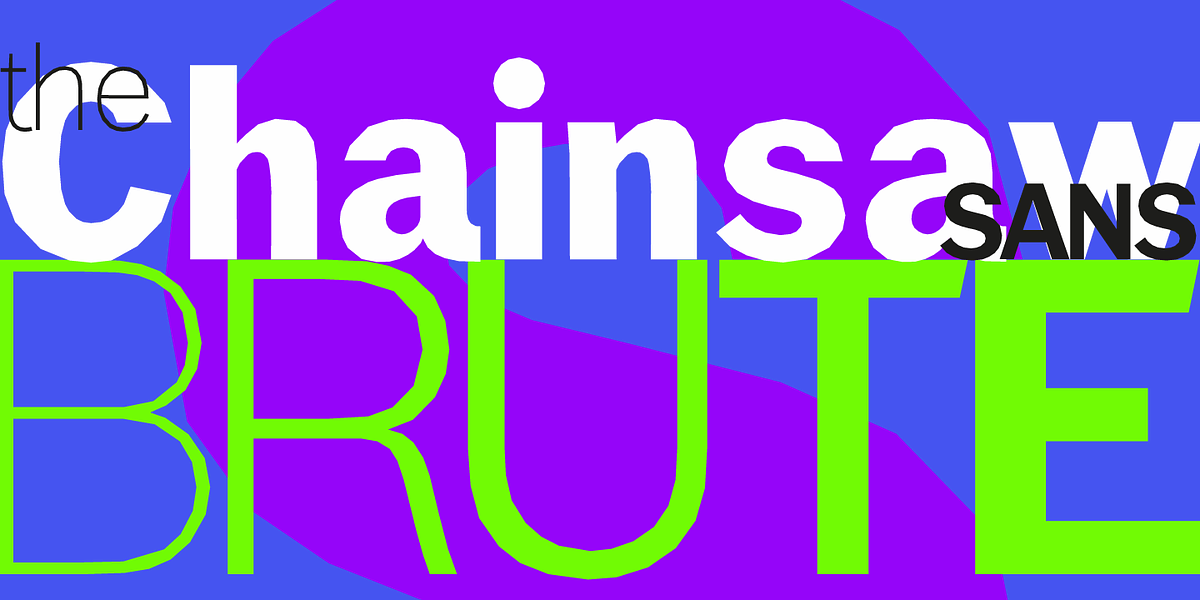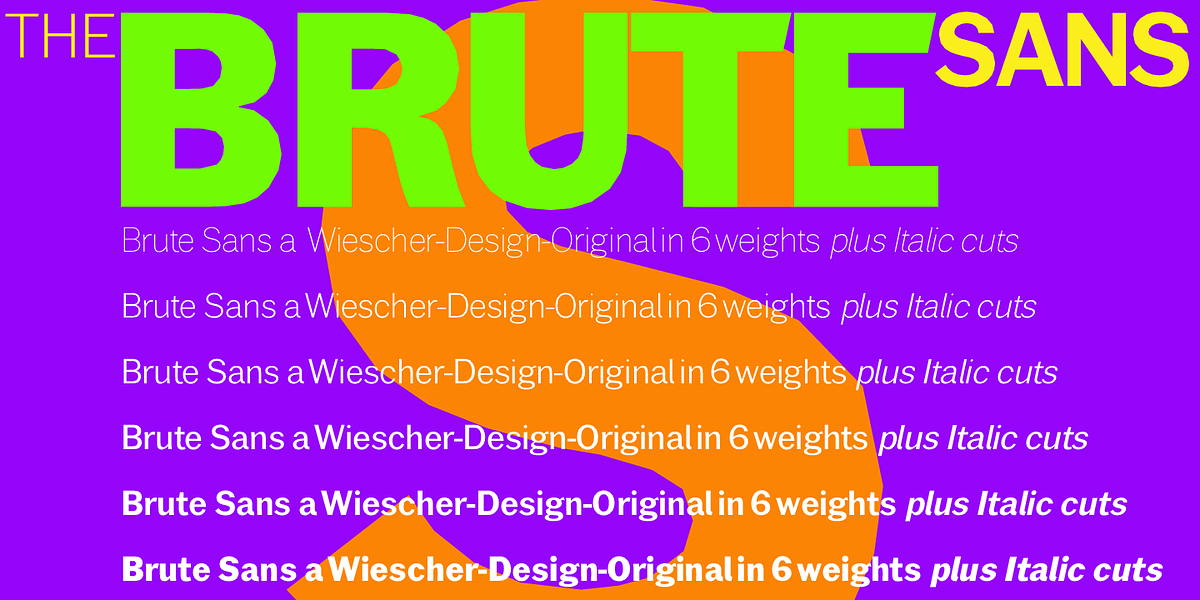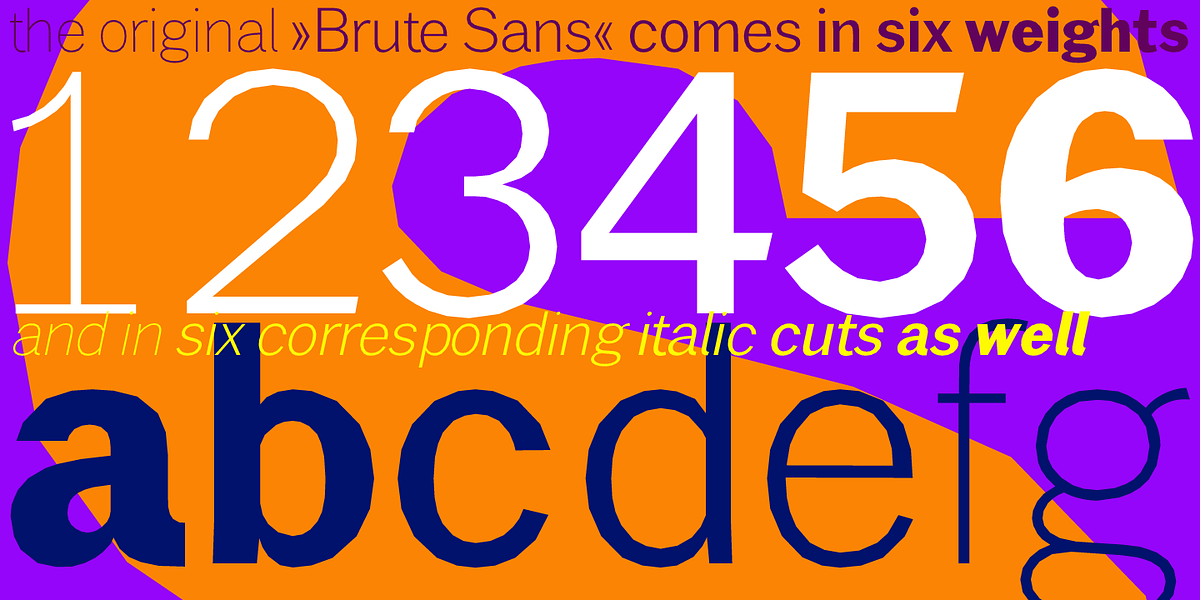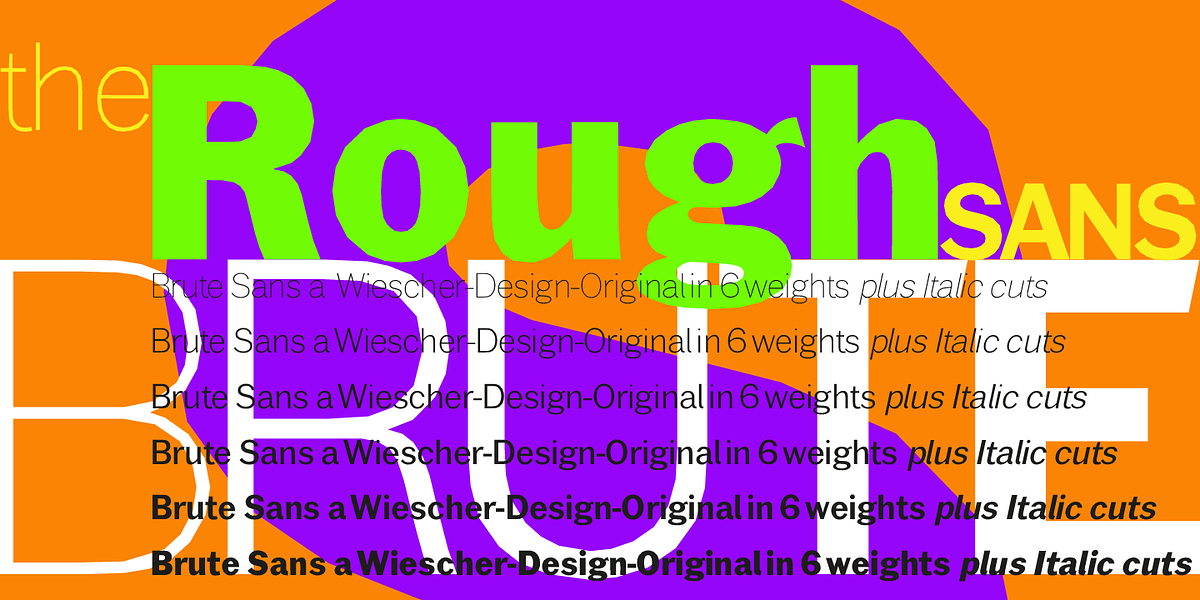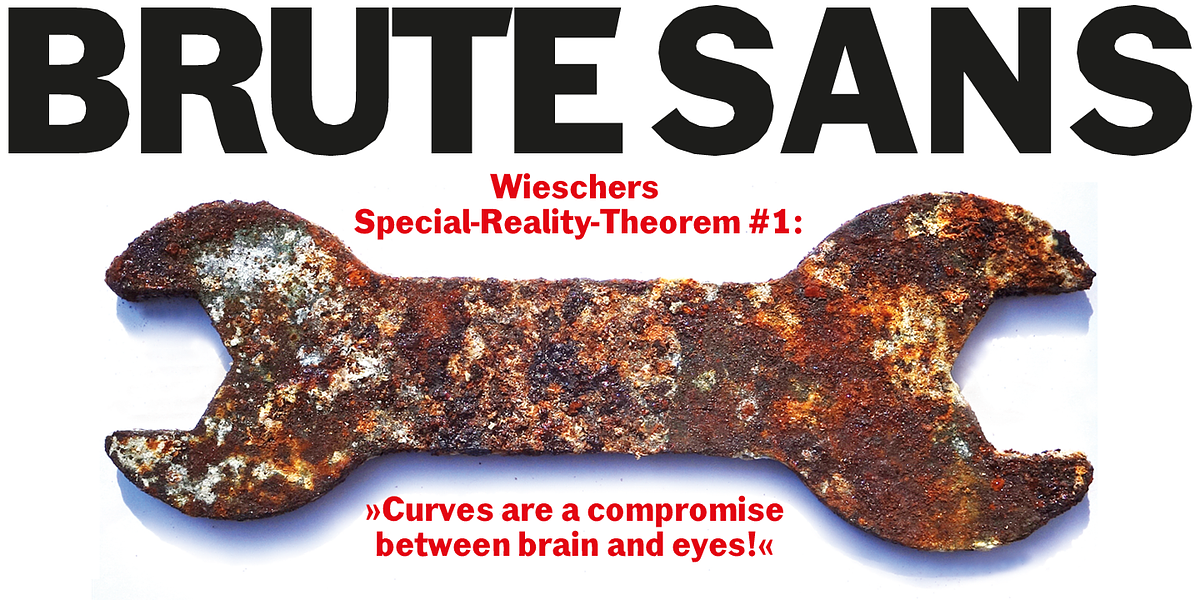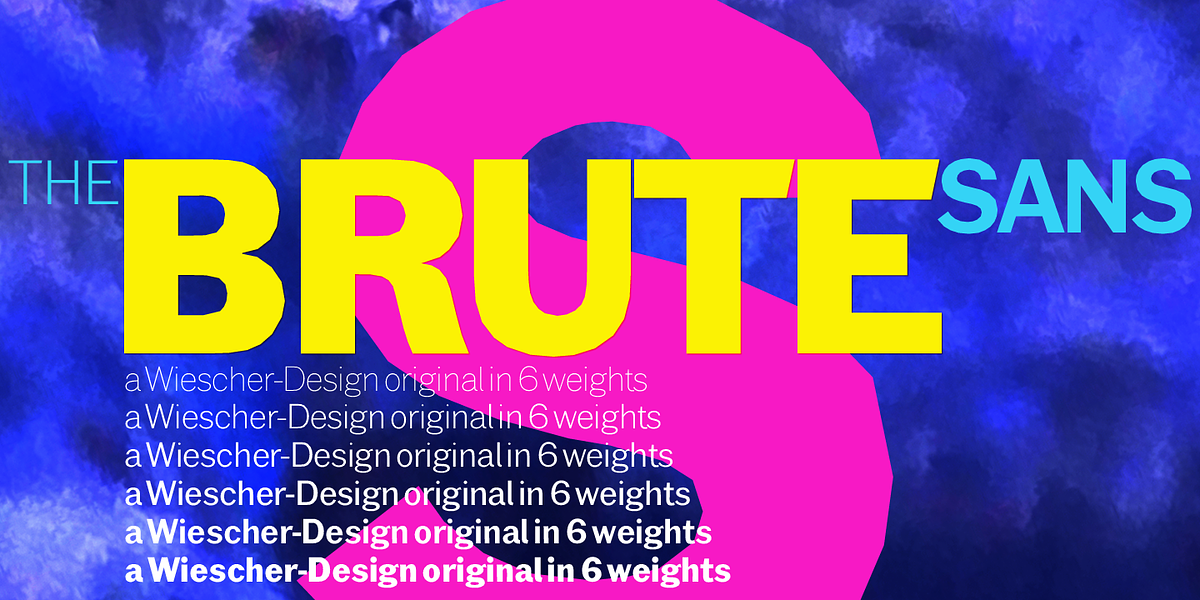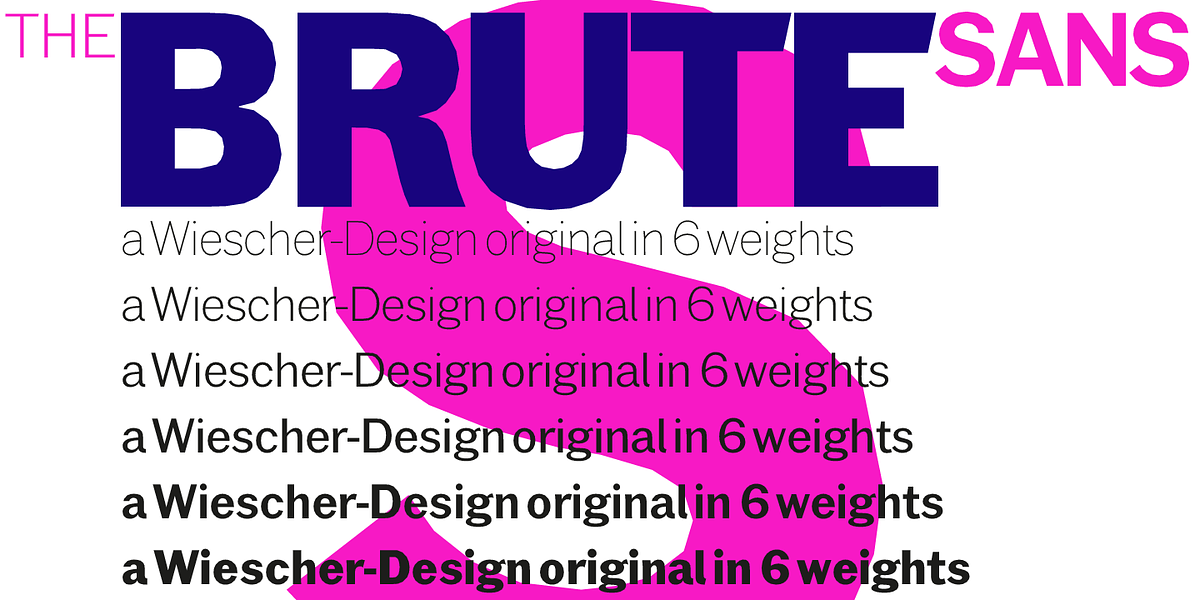
Brute Sans
Brute Sans is a sans-serif typeface characterized by its sharp, angular letterforms. Its design creates a distinct and bold visual presence, making it well-suited for headlines and display text where a unique aesthetic is desired. The font's rugged appearance evokes an industrial or mechanical feel.